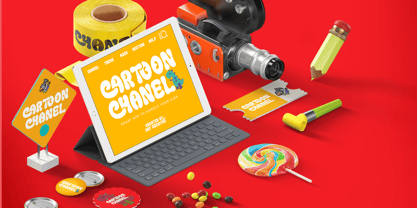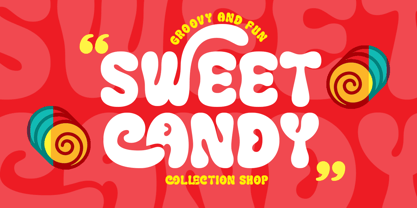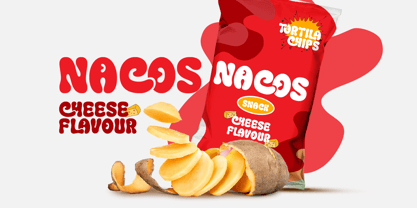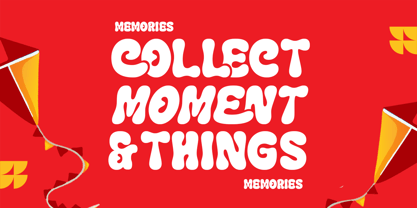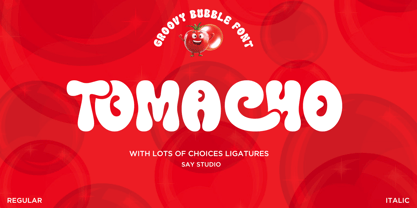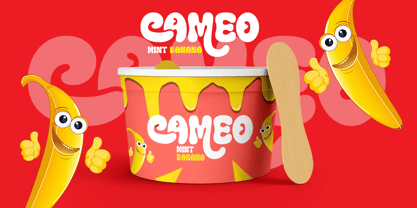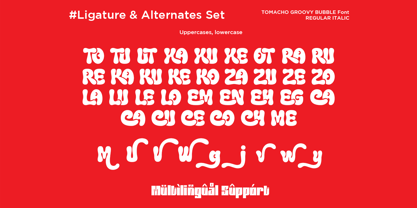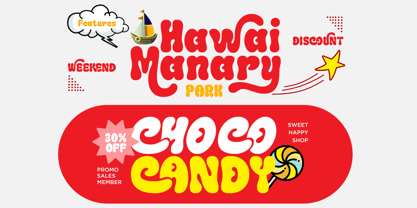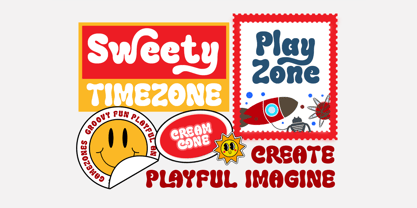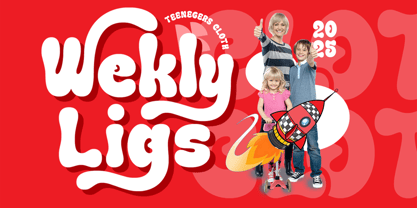
Tomacho
by Say Studio
The Tomacho Font Family was designed by Mussyayin and published by Say Studio. Tomacho contains 2 styles and family package options. More about this family
Tomacho is a groovy bubble font designed to bring joy, energy, and personality to your designs. Featuring bold, rounded letterforms with soft curves and playful proportions, this font creates a friendly and eye-catching look. Its bubbly style is enhanced with fun ligatures that add variety and movement, making every word feel lively and unique.
Perfect for kids designs, logos, posters, packaging, stickers, social media graphics, and playful branding, Tomacho delivers a cheerful retro vibe while remaining highly readable. Whether you’re creating fun headlines or expressive displays, this font adds a bold, happy character that instantly stands out.
• Regular and Italic
• Stylistic Alternates
• Stylistic Ligatures
• Uppercase and Lowercase
• Number, Symbol, and Puntuation